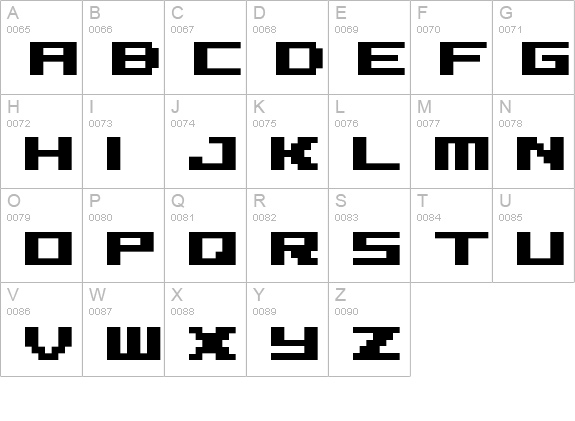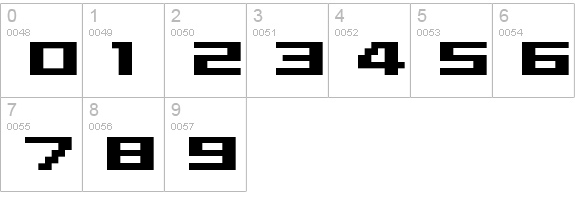
04b 09 font is a modern and stylish typeface that exudes a sense of sleekness and sophistication. With its clean lines and geometric shapes, this font is perfect for creating a contemporary look in your designs. The sharp angles and bold letterforms make a strong visual impact, making it ideal for headlines, logos, and branding projects. What sets 04b 09 font apart is that it is available for free download at FontsMarket.com. This means you can easily access this versatile typeface without any cost, making it a great choice for both personal and commercial use. Whether you are designing a website, designing a poster, or creating social media graphics, 04b 09 font will add a touch of modernity and professionalism to your projects. Download this font today and elevate your designs to the next level!